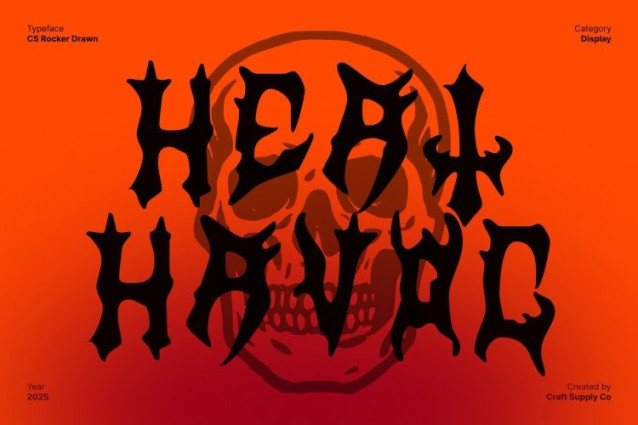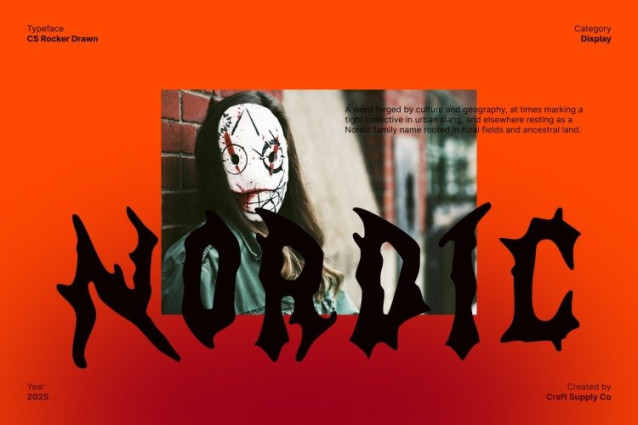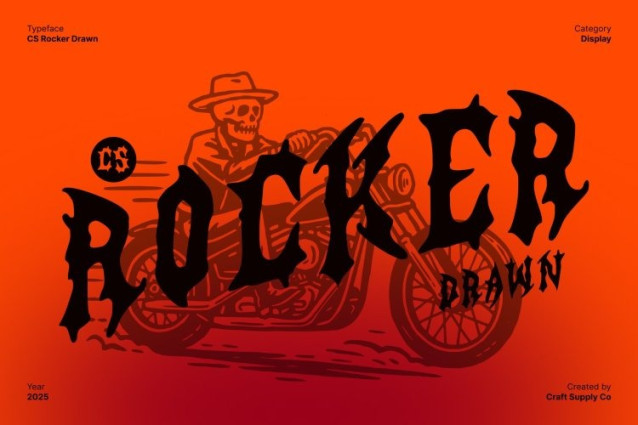
CS Rocker Drawn Font
CS Rocker Drawn Font This is a loud, commanding heavy metal display font crafted to capture the raw intensity of metal music. Its sharp, angular letterforms radiate power and attitude, making every word feel forceful and electrifying. Designed to dominate visual space, this font is ideal for projects that demand attention and deliver a bold statement.
Hand-Drawn Texture for Raw Authenticity
The drawn effect adds rugged, imperfect edges to each character, enhancing the font’s aggressive personality. These subtle hand-drawn textures create a dynamic, energetic appearance, giving the typeface a unique, organic feel that echoes the raw emotion and rebellious spirit of heavy metal.
Perfect for Band Logos, Gig Posters, and Album Covers
This thrives in environments where visual intensity is key. It’s perfect for music branding, metal band logos, album covers, concert posters, and merchandise design. The combination of sharp angles and handcrafted texture makes it an ideal choice for designs that want to evoke power, energy, and fearless creativity.
A Fierce Typeface with Distinctive Character
Blending heavy metal style with hand-drawn artistry, this font offers a typeface that’s both aggressive and expressive. Its commanding presence, dynamic textures, and intense personality make it a go-to font for designers aiming to create striking, memorable, and rebellious visual statements.